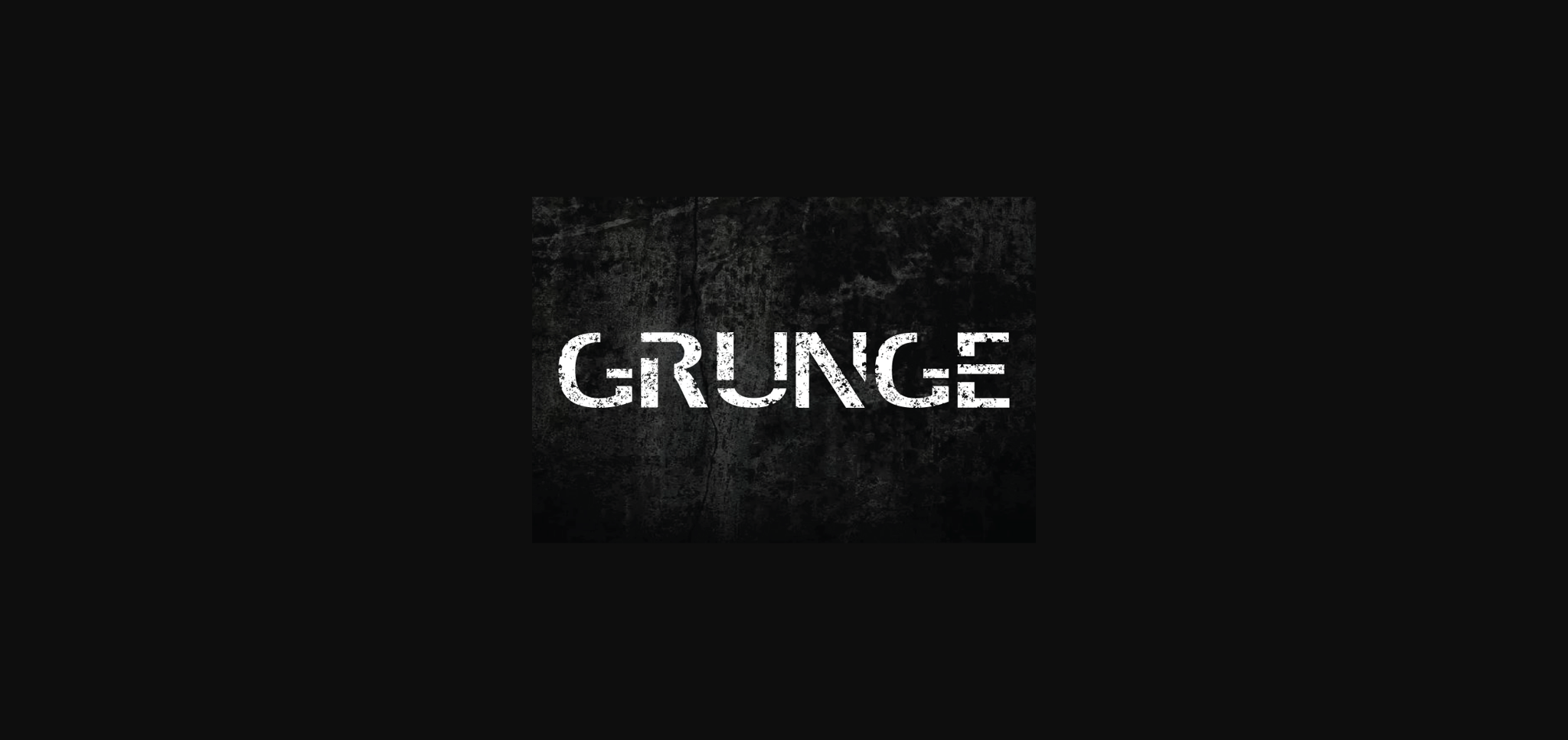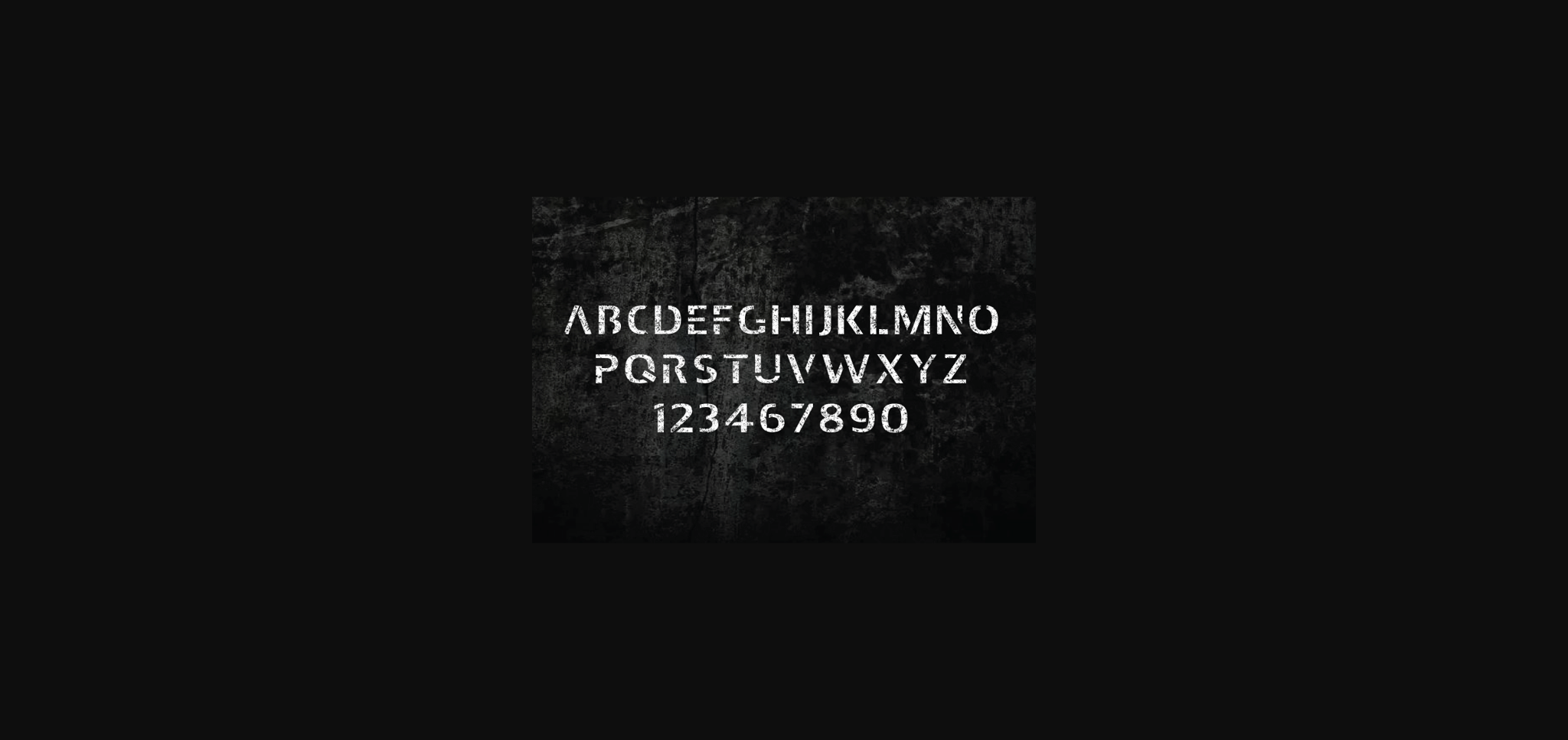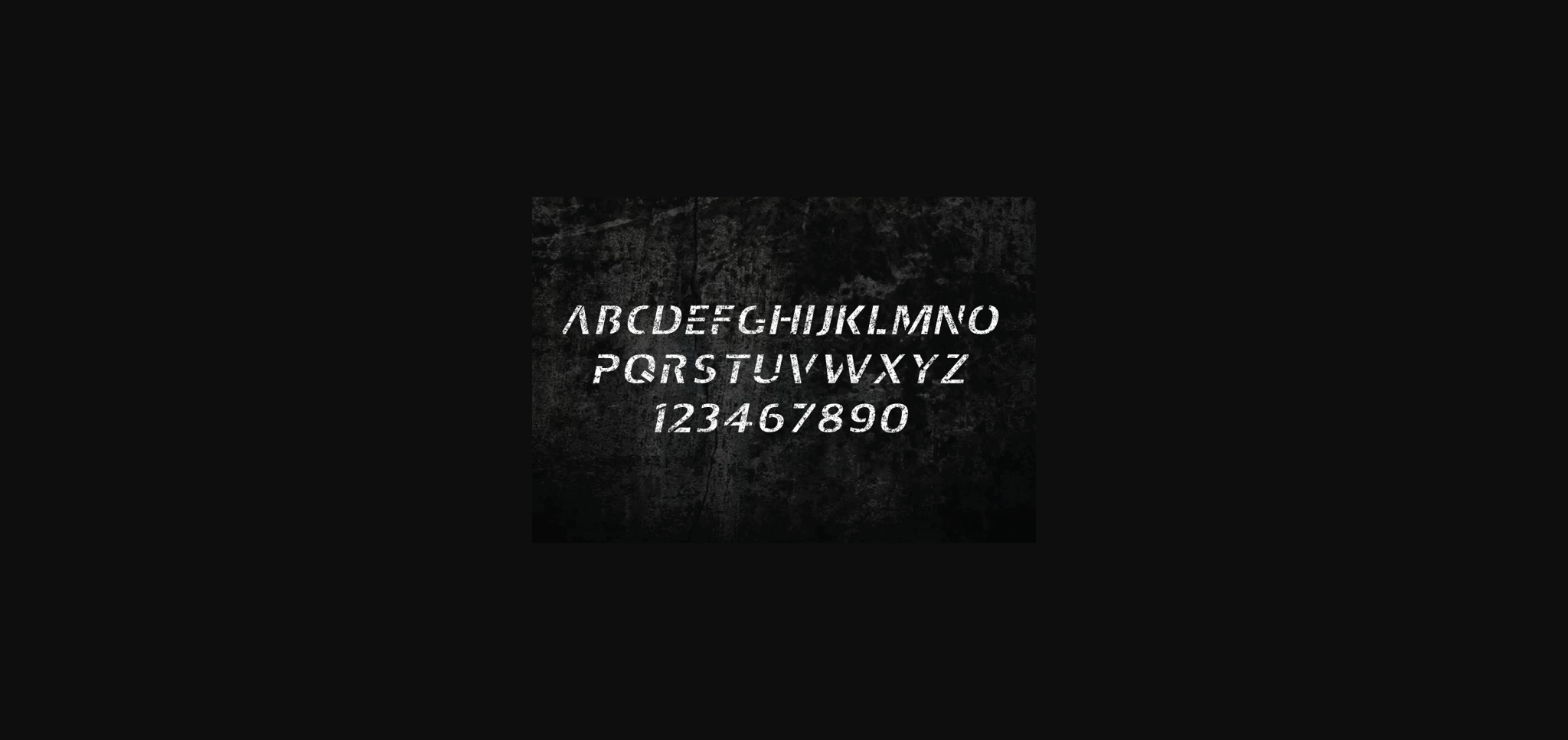
About Grunge Font
Grunge Font exudes a raw, edgy aesthetic perfect for adding character to your design projects. Its clean lines and bold strokes create a distinctive visual impact, while the subtle grunge texture adds a touch of authenticity. This versatile typeface is ideal for making statements in logos, headlines, or any design element that demands attention. Elevate your visual content with this powerful font choice that strikes a balance between simplicity and boldness.